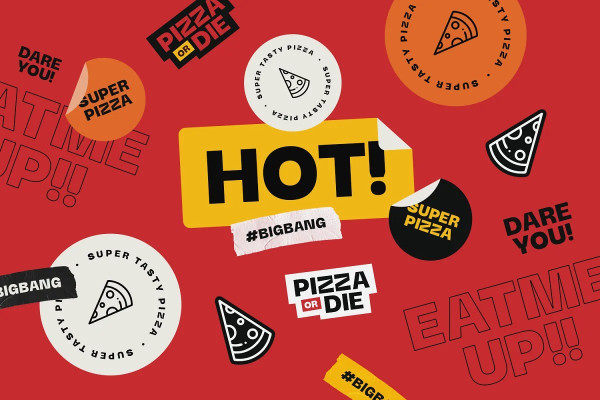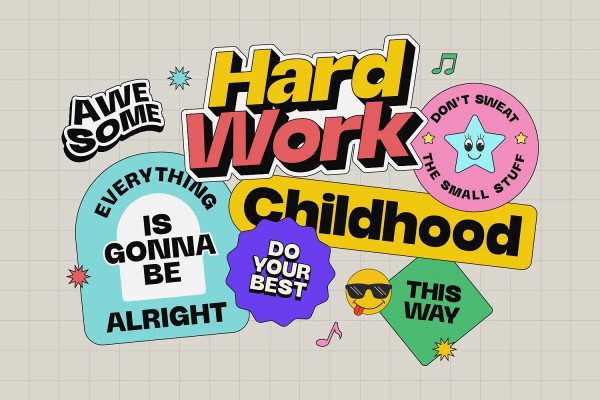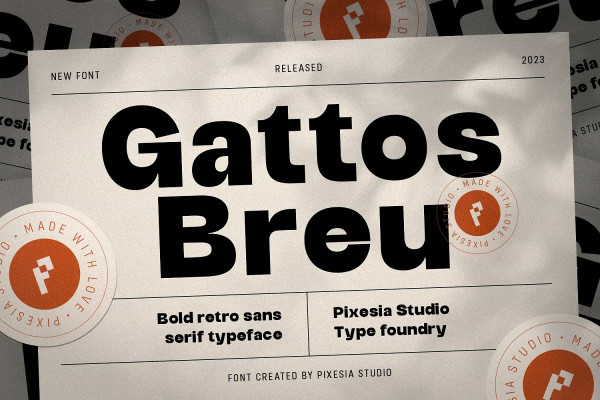
Gattos Breu Font
Gattos Breu Font is a retro groovy display font with a bold and playful style. It is perfect for catchy headlines, funky stickers, cool badges, and more. It has alternates and ligatures to give your designs a unique and casual look. Gattos Breau is a legible and decorative sans serif font that adds some pop art flair to your projects.